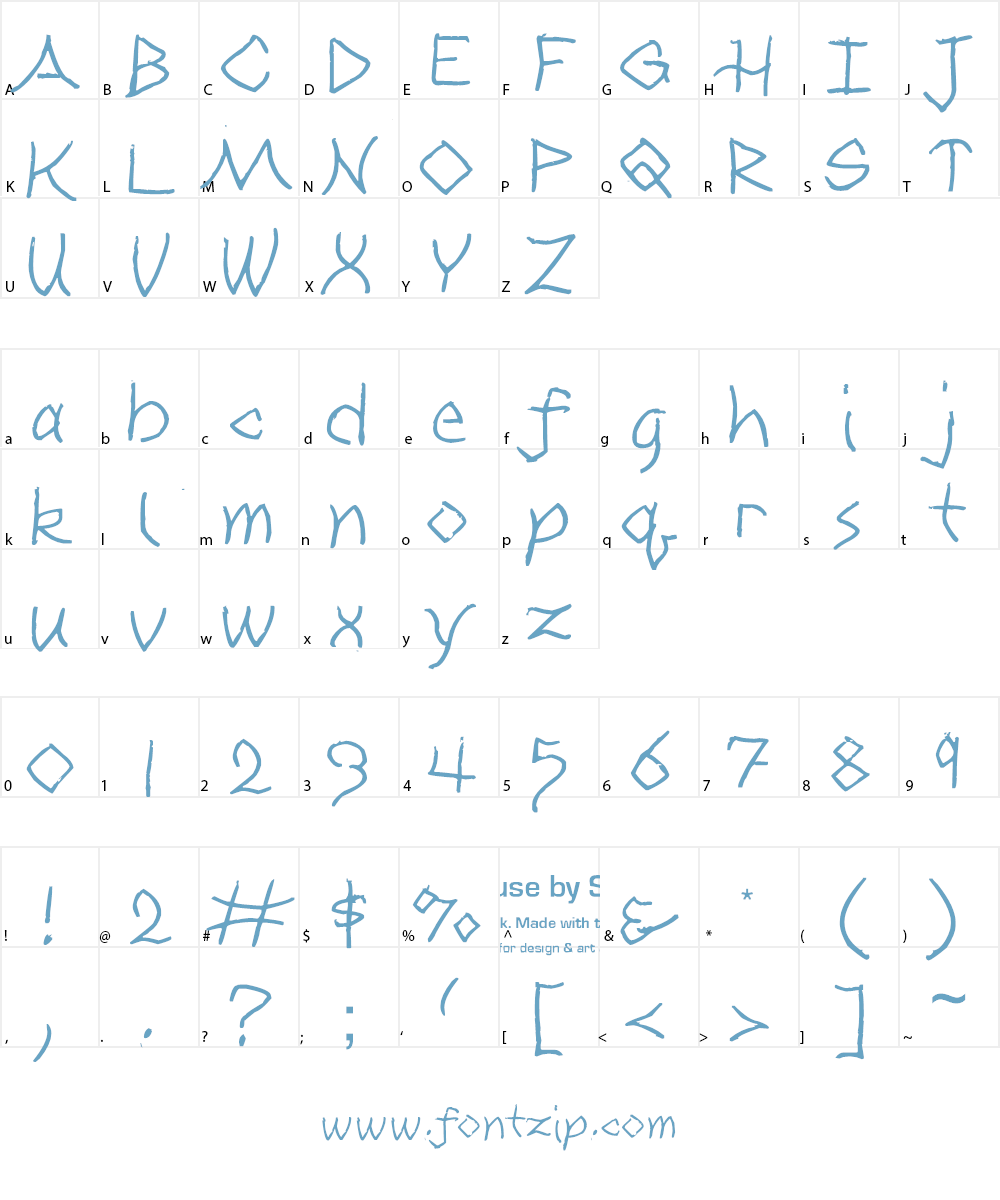
If you liked Tribal and you're a teacher, you'll probably love Tribal Schoolhouse...maybe even if you don't teach. For a full history of the font, check out "Tribal" by SWMCA. This is the first of a series of "schoolhouse" fonts to be introduced. The schoolhouse line is SWMCA fonts modified to how the alphabet is taught in elementary schools (USA) but designed to keep many of the characteristics of the original font. Any or all of the following characters will be subject to modification from the original in manuscript schoolhouse fonts: A,E,F,G,I,J,M.N,T,U,W,Y, a,e,f,g,q,r,t,u,w,y,z,3,4,6, and 9. Additional ones may also be modified if needed. Teachers work hard and often have to buy materials and supplies from their own measley paychecks. They really aren't paid or respected enough, but care for our kids so much that many would risk their own life to protect the kids as illustrated in the Sandy Hook massacre. To them and other educators our there this is the first of the "schoolhouse" fonts. Schoolhouse (at least those produced by SWMCA) fonts are always freeware, even for commercial usage (so they can be used freely in both public and private schools). As for the Tribal font itself, a "Tribal 2" is coming. It's like the original but addresses spacing, kerning, and punctuation problems with the original. The schoolhouse version to SWMCA's knowledge does not have these issues. No promises, but a cursive Tribal is also planned if the bugs can be worked out. IMPORTANT NOTE: The square root sign replaces the registered trademark symbol on schoolhouse fonts.